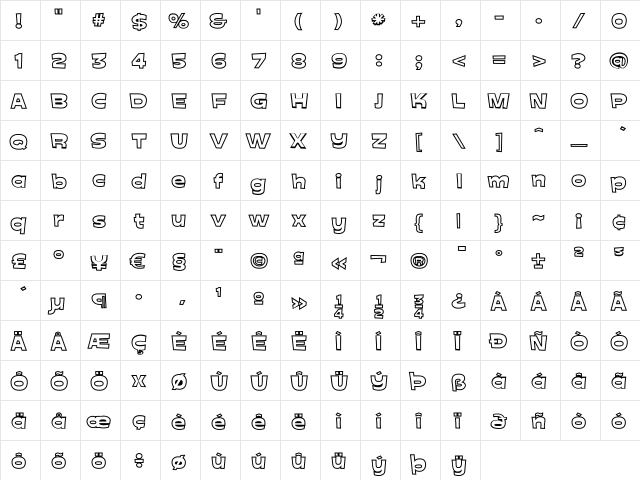
BlueGlobal-OutOfSpace Medium
Design Context for BlueGlobal-OutOfSpace Typeface
BlueGlobal-OutOfSpace takes a measured approach to typography — its balanced proportions and neutral character make it a reliable workhorse for both digital and print work.